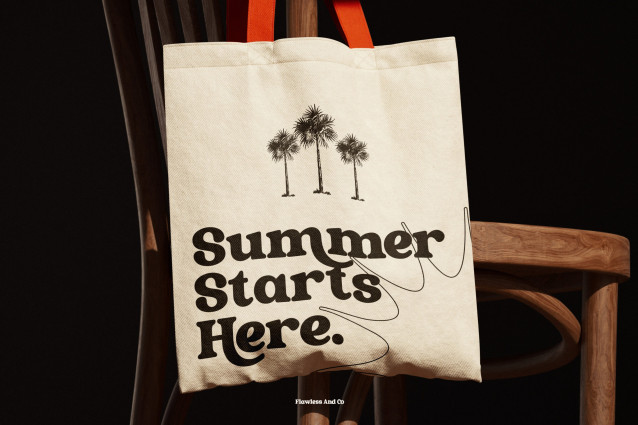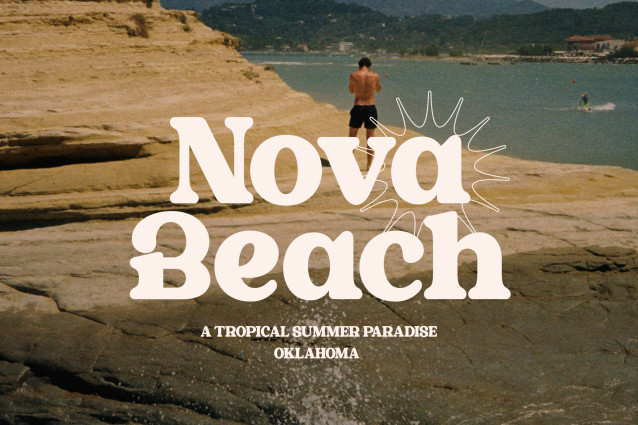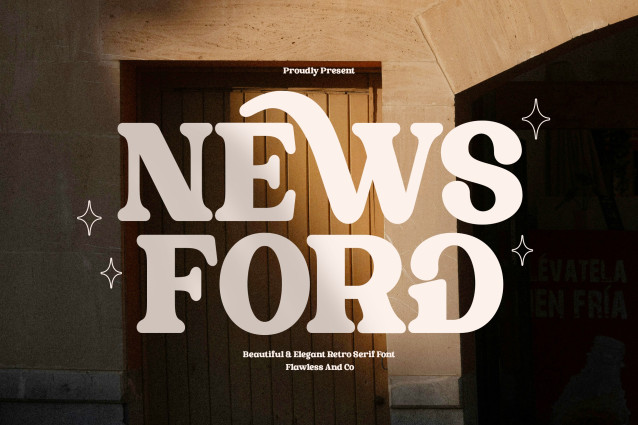
Newsford – Elegant and Beautiful Retro Serif Font
Newsford is a beautiful retro serif font that brings together classic elegance, expressive curves, and a charming vintage personality. Featuring bold yet graceful letterforms, soft rounded details, and distinctive serif shapes, Newsford creates a warm and sophisticated look while maintaining a strong visual presence.
Inspired by vintage typography, classic storefront signs, editorial lettering, and timeless brand identities, Newsford gives every word a nostalgic character with a modern sense of style. Its unique proportions and carefully crafted curves make it especially eye-catching in large headlines, allowing your typography to become the main visual element of your design.